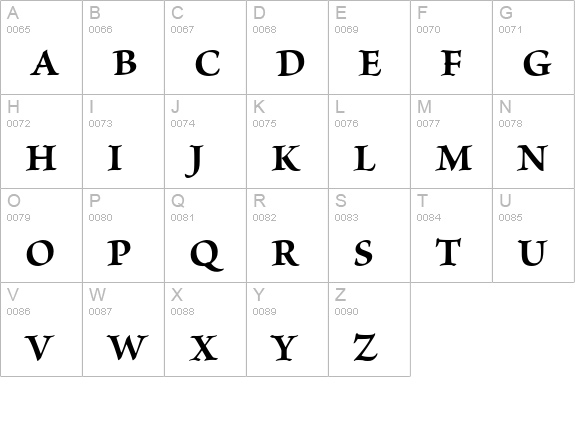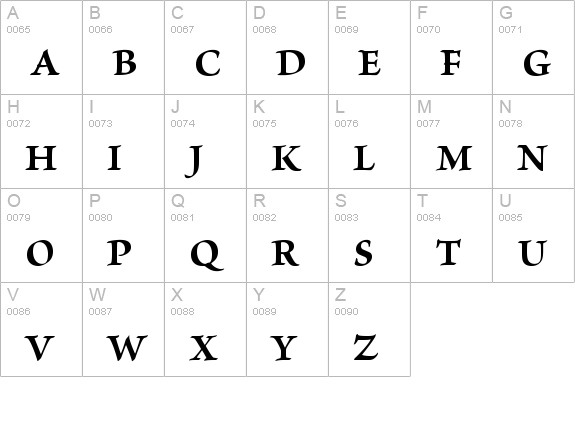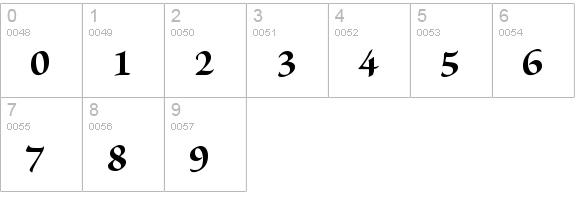
Brioso Pro Bold is a strong, high-contrast variant in the Brioso typeface family \xE2\x80\x94 well suited to headlines, attention-grabbing titles, and strong calls-to-action.
Brioso Pro Bold is a striking and versatile typeface that exudes confidence and modernity. With its strong, bold strokes and elegant curves, this font is perfect for making a bold statement in any design project. Its sleek and sophisticated appearance makes it ideal for headlines, titles, and branding materials. The best part? Brioso Pro Bold is available for free download at FontsMarket.com. This means that you can easily add this stunning font to your collection without any cost, allowing you to elevate your designs without breaking the bank. Whether you're working on a professional project or a personal passion project, Brioso Pro Bold is sure to make a lasting impression. Download it today and unleash your creativity with this exceptional font.